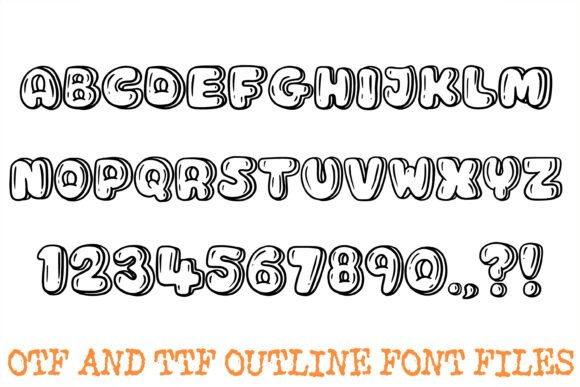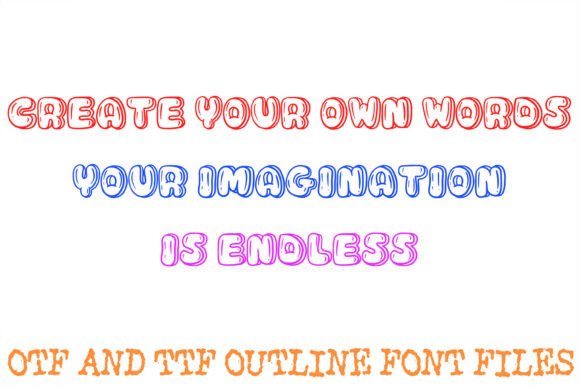
Bubble Water Font: A Refreshing Display Typeface for Aquatic-Themed Designs
Are you looking for a font that can capture the carefree essence of underwater bubbles and crystal-clear streams? Look no further than the Bubble Water Font, a high-impact display typeface that’s perfect for designers working on aquarium signage, summer pool party invitations, beverage branding, and aquatic-themed social media content.
A Font that Embodies the Spirit of Water
The Bubble Water Font is designed to evoke the buoyant energy of water, with bold, voluminous letterforms that feature smooth, rounded curves and strategic “reflective” highlight marks. The result is a font that creates a sense of lighthearted fluidity, making it perfect for designs that require a playful and refreshing aesthetic.
Key Features of the Bubble Water Font
- Bold and Voluminous Letterforms: The Bubble Water Font features thick, chunky letterforms that make each character feel like it’s floating on water.
- Smooth, Rounded Curves: The font’s smooth, rounded curves give it a soft and approachable feel, making it perfect for designs that require a friendly and inviting tone.
- Strategic “Reflective” Highlight Marks: The font’s highlight marks add a touch of realism to the design, giving it a “wet-look” aesthetic that’s both playful and engaging.
- High Legibility: Despite its bold and playful design, the Bubble Water Font is remarkably legible, making it perfect for use in a variety of design applications.
Design Applications for the Bubble Water Font
The Bubble Water Font is a versatile typeface that can be used in a variety of design applications, including:
- Aquarium Signage: The font’s aquatic theme makes it a perfect fit for aquarium signage, adding a touch of fun and playfulness to exhibits and displays.
- Summer Pool Party Invitations: The font’s refreshing aesthetic makes it perfect for summer pool party invitations, helping to set the tone for a fun and carefree event.
- Beverage Branding: The font’s “wet-look” aesthetic makes it a great fit for beverage branding, particularly for companies that specialize in water-based drinks.
- Aquatic-Themed Social Media Content: The font’s playful and engaging design makes it perfect for use in aquatic-themed social media content, such as Instagram posts and Facebook updates.
- Seaside Surf Shop Identity: The font’s coastal vibe makes it a great fit for seaside surf shop identities, helping to create a fun and laid-back brand image.
- Children’s Apparel: The font’s playful and colorful design makes it perfect for use in children’s apparel, particularly for summer-themed clothing and accessories.
Why Choose the Bubble Water Font?
There are many reasons why designers and crafters should choose the Bubble Water Font for their next project. Here are just a few:
- Unique and Eye-Catching Design: The font’s bold and playful design is sure to grab attention and make your design stand out.
- High Versatility: The font’s versatility makes it perfect for use in a variety of design applications, from aquarium signage to children’s apparel.
- Easy to Read: Despite its bold and playful design, the font is remarkably legible, making it perfect for use in designs that require a clear and easy-to-read message.
The Bubble Water Font is a refreshing and high-impact display typeface that’s perfect for designers and crafters looking to add a touch of aquatic fun to their designs. With its bold and voluminous letterforms, smooth rounded curves, and strategic “reflective” highlight marks, this font is sure to make a splash in any design application. Whether you’re working on aquarium signage, summer pool party invitations, or aquatic-themed social media content, the Bubble Water Font is a premier choice for designers who want to create a fun and engaging aesthetic.